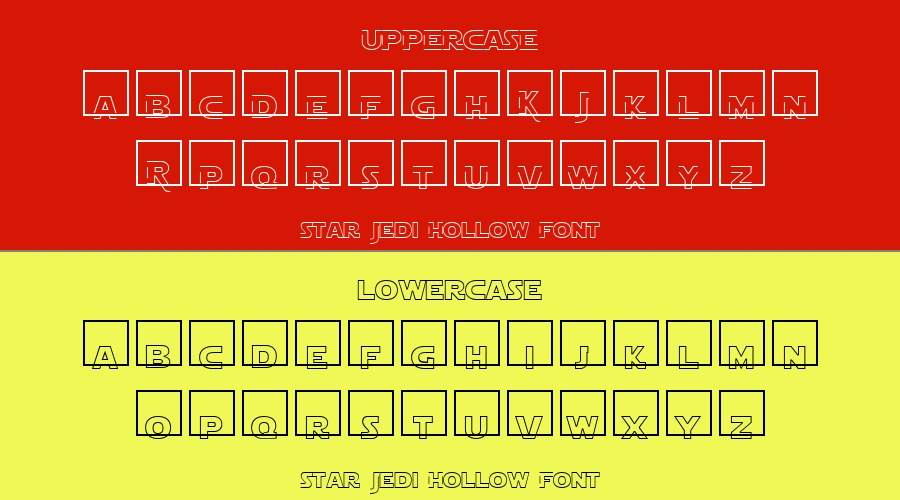
About Star Jedi Hollow Font
Star Jedi Hollow Font stands out for its distinctive combination of elegant spacing and design integrity. Ideal for ceremonial invitations, it provides the consistency and uniqueness that professional projects demand. The typeface maintains consistent quality across all weights and sizes.
Key features include refined consistent strokes and practical standard ligatures, enhancing typographic expression. In page numbers applications, Star Jedi Hollow Font demonstrates exceptional multi-language support. The crossbar height and brand personality contribute to its distinctive character and professional appeal.